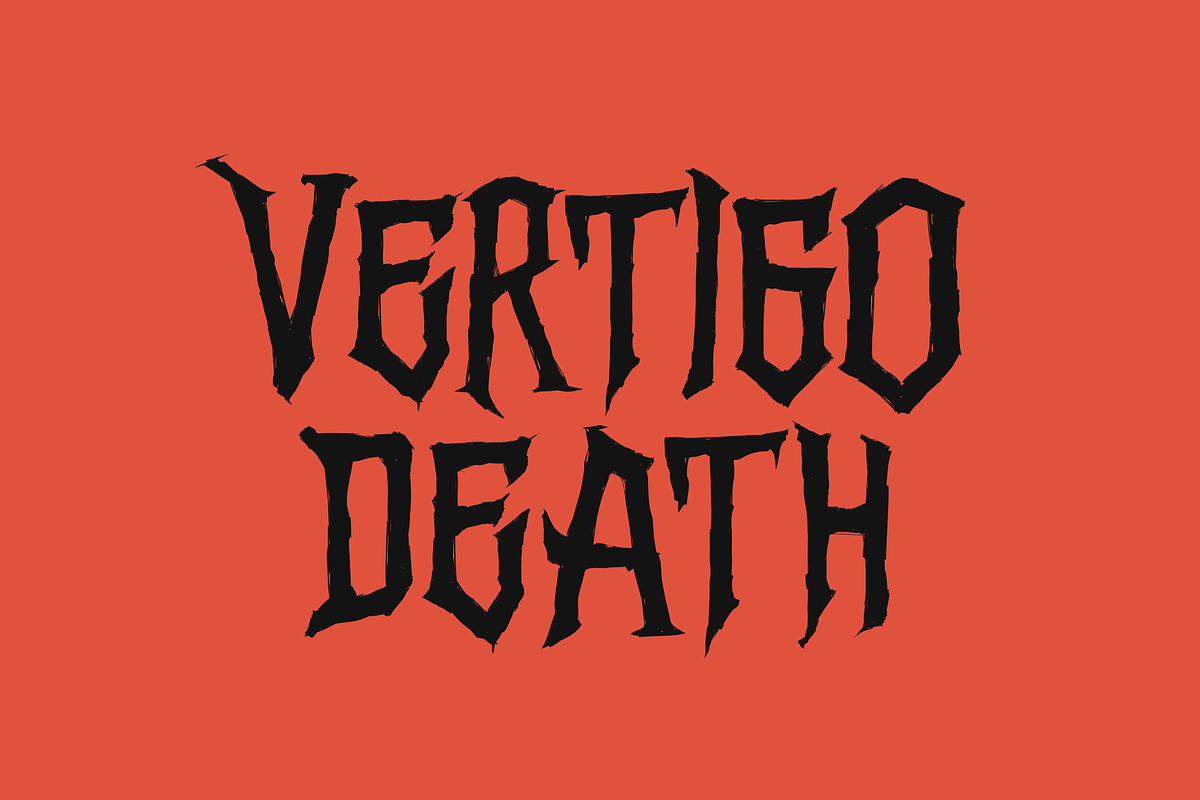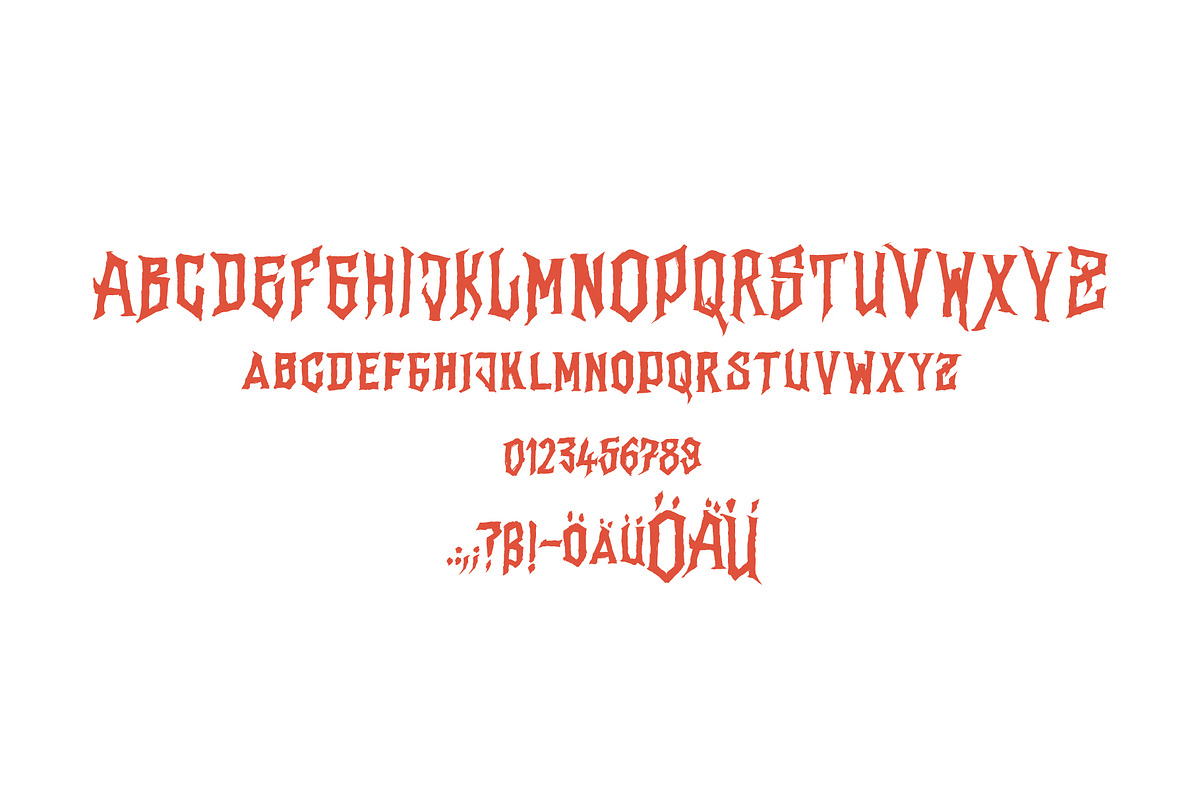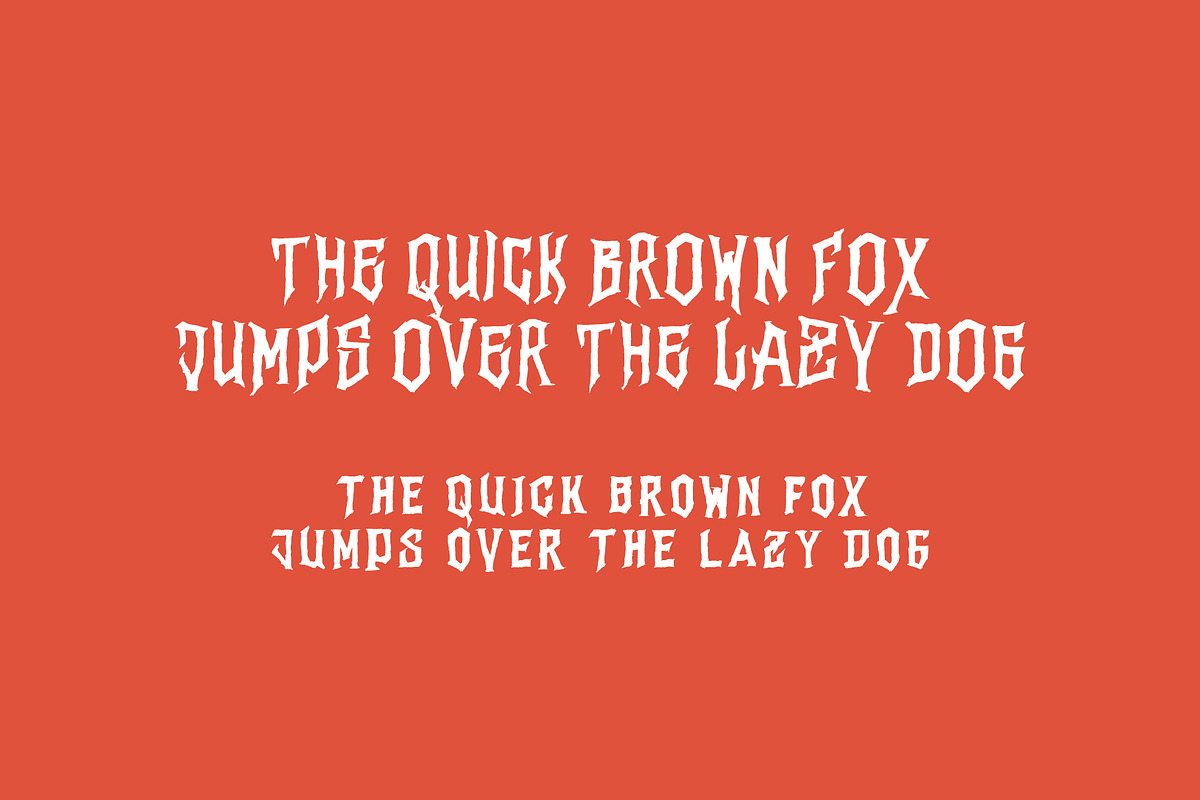
Vertigo Death
Vertigo Death is a decorative vintage font inspired by the heavy metal and extreme sport culture.
Usefull for Logotypes, Headlines, Apparel Design etc.